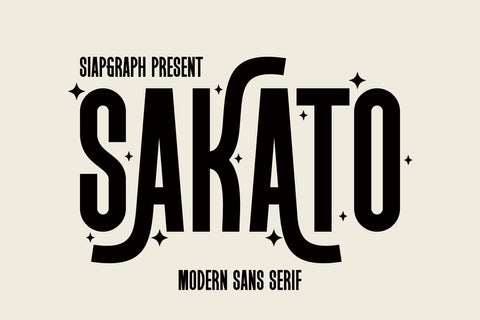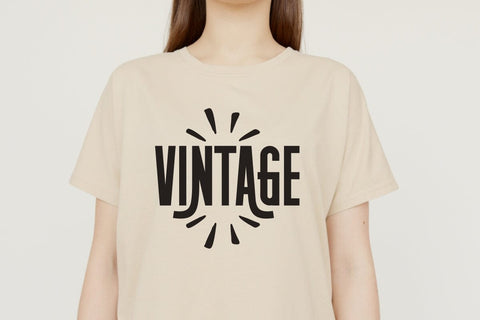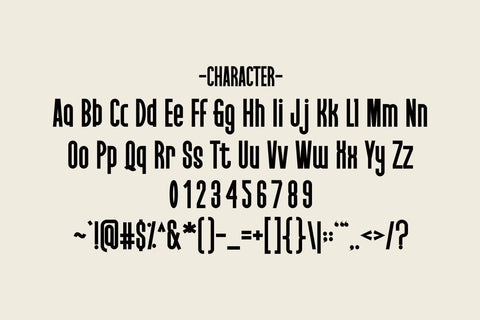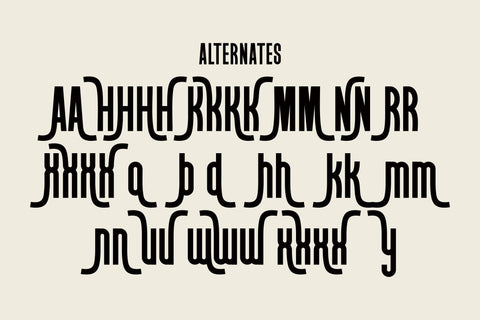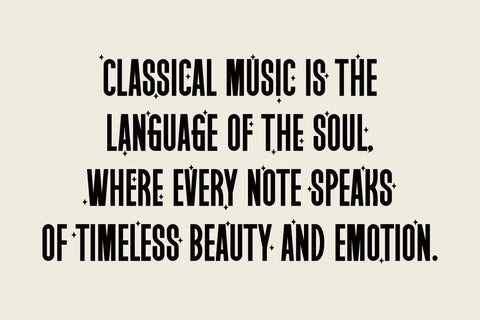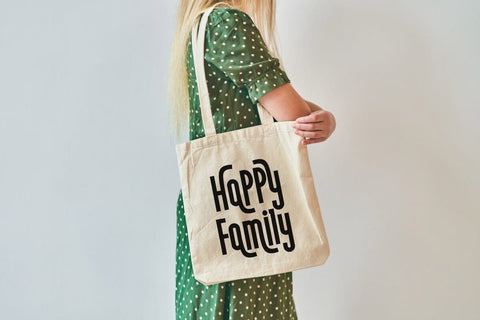
Sakato - Modern Sans Serif Font
Sakato is a modern sans serif font inspired by the festive spirit of Christmas. Its clean and versatile design makes it perfect for creating standout quotes, movie titles, labels, posters, and apparel such as t-shirts, mugs, and tote bags. This font adds a fresh and contemporary touch to any holiday-themed project, while also fitting perfectly into modern design needs.